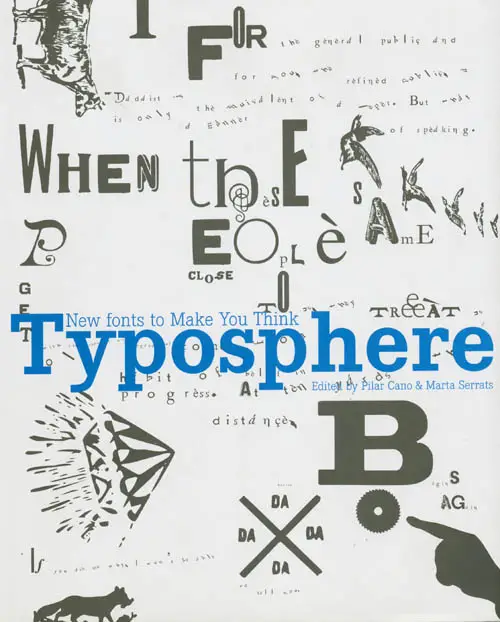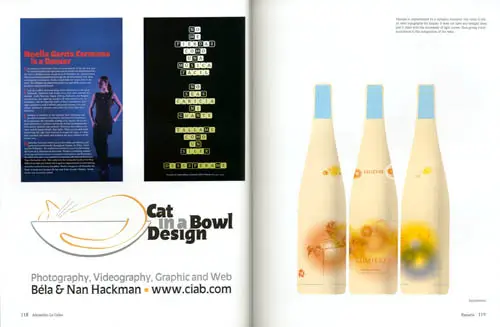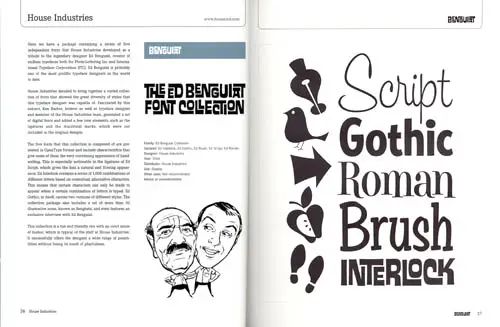
Typosphere: New Fonts to Make You Think
Typosphere is a comprehensive guide for typographers and graphic designers who are fascinated by the latest font designs and their use in editorial design.
The book is divided into different chapters: Aggressive, Funny, Nostalgic, Energy, Playful, Happy and Calm. With a selection of real typographical designs, the reader can not only discover the designs of new typographies, but can also explore the effect created when they appear on the page.
With a wide selection of the latest styles, Typosphere showcases fonts in the broader context of their design and is sure to captivate graphic design students and professionals alike.